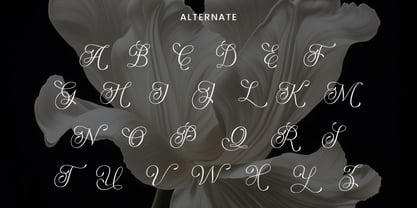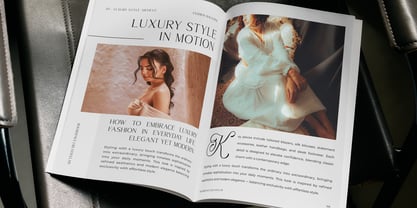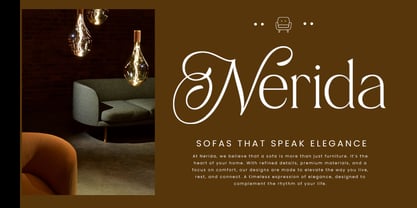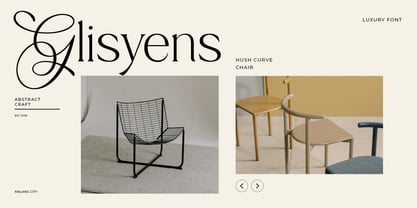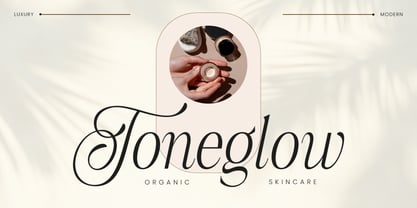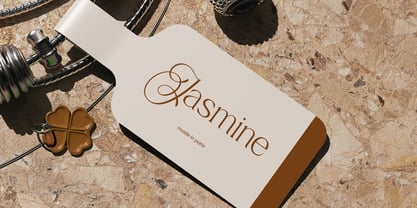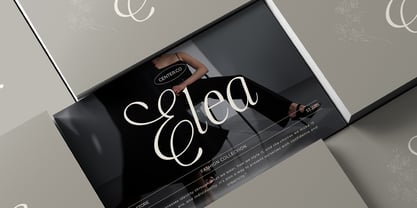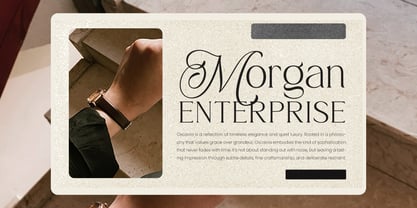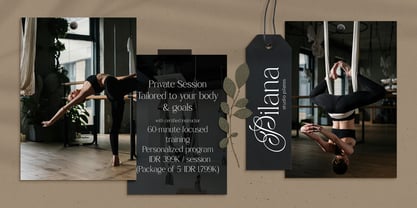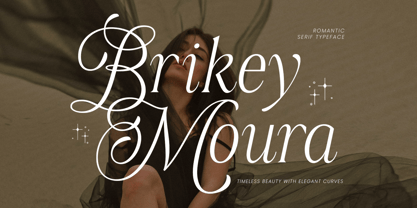
Brikey Moura
by Jafar07
The Brikey Moura Font Family was designed by Bakhrudin Ja'far and published by Jafar07. Brikey Moura contains 2 styles and family package options.
Brikey Moura is a modern luxury serif font designed to bring timeless elegance into every project. With its romantic personality and bold presence, this typeface blends classic beauty with a contemporary twist. Perfectly balanced and graceful, Brikey Moura is crafted for designers who value sophistication and style.
Every letter in Brikey Moura carries delicate curves and refined details, giving it both strength and softness. The font features smooth kerning, harmonious proportions, and versatile letterforms that make it easy to adapt across different layouts. Whether used in large headlines or subtle subtext, it ensures a polished and luxurious look.
From logos, branding, packaging, invitations, social media graphics, magazines, to editorial layouts and wedding stationery, Brikey Moura is the ideal choice. If you’re searching for a typeface that communicates confidence, romance, and class, Brikey Moura is more than just a font it’s a statement piece for your design toolkit.